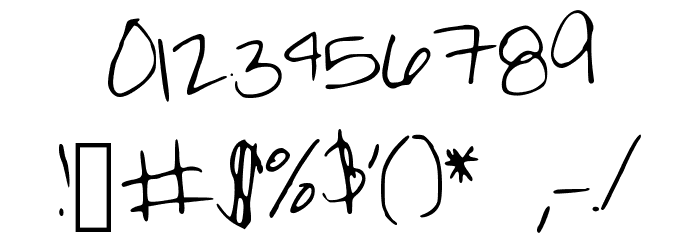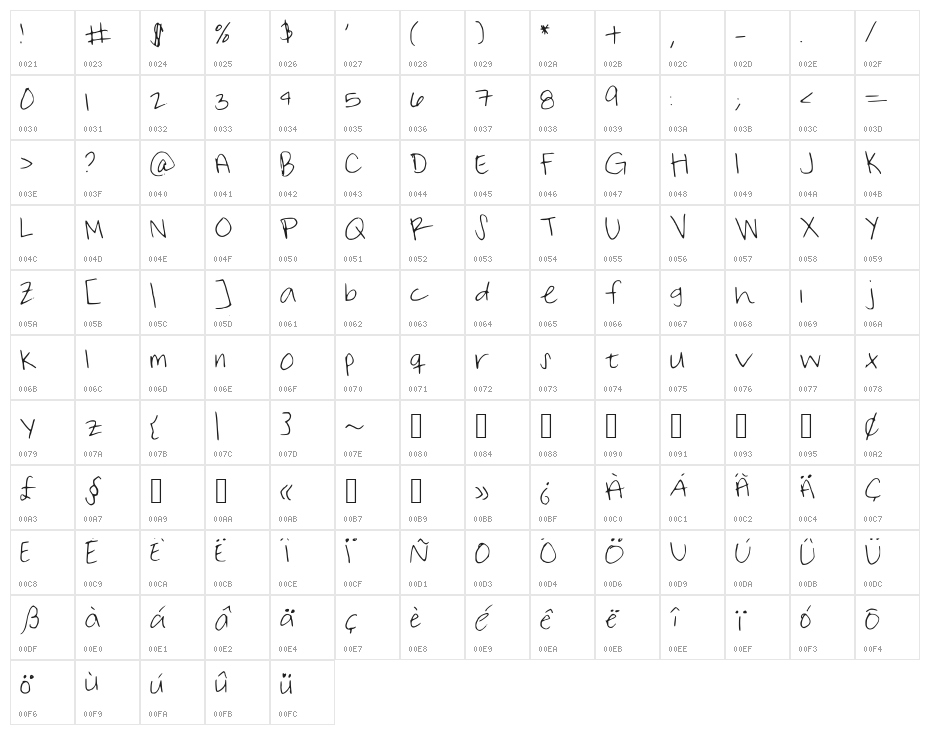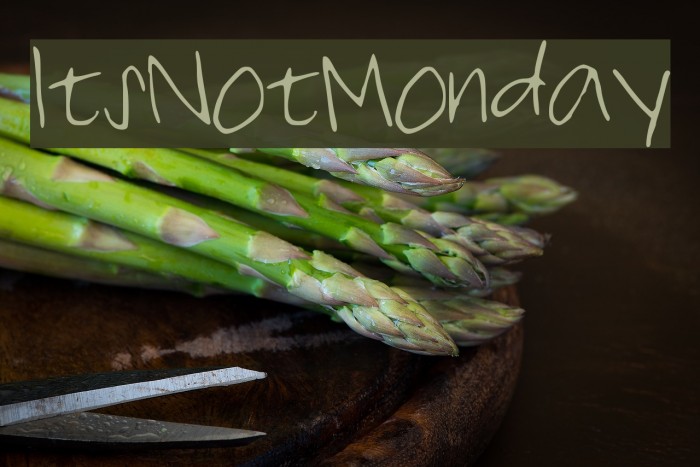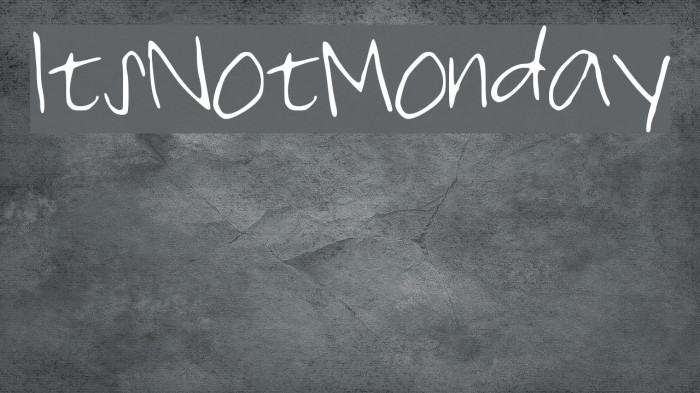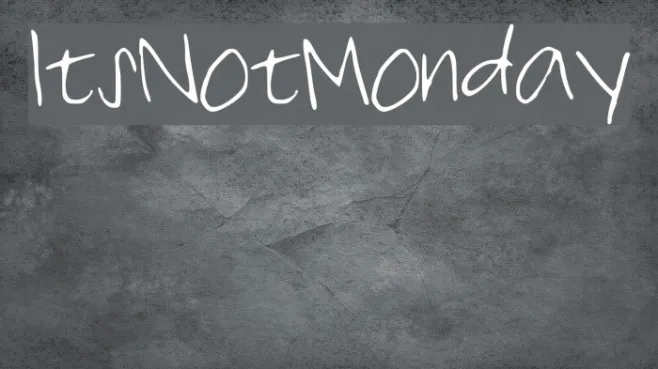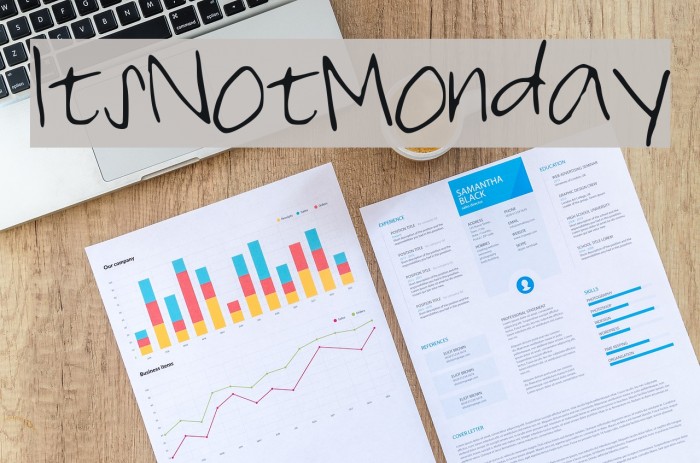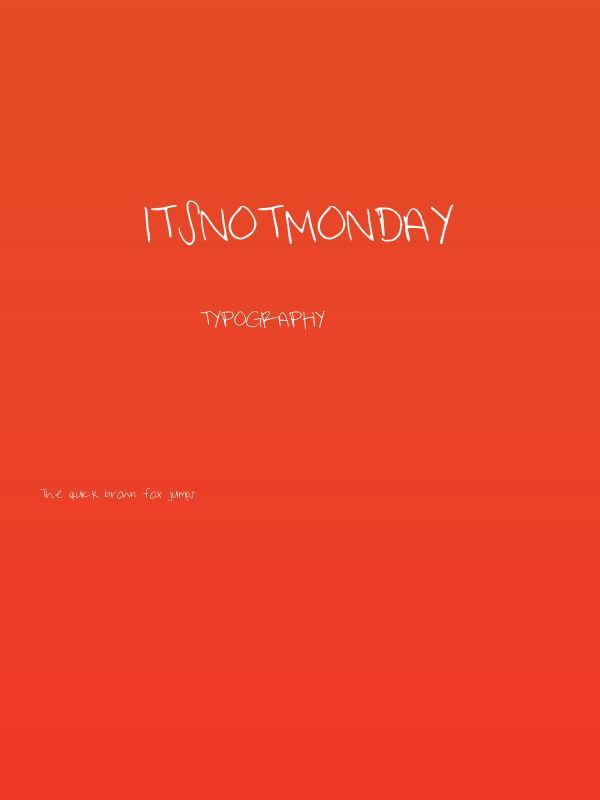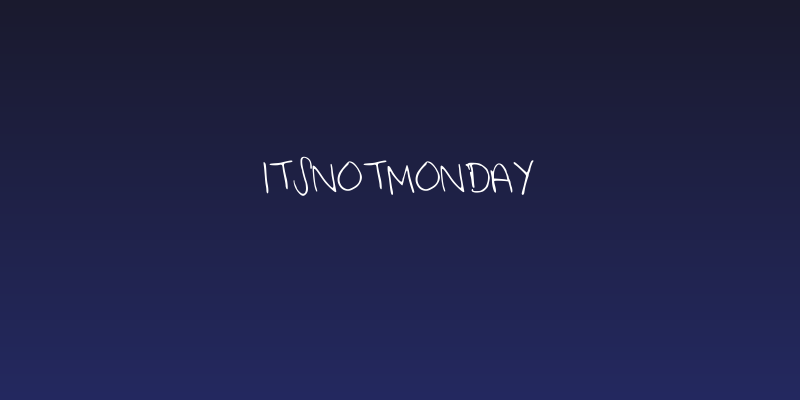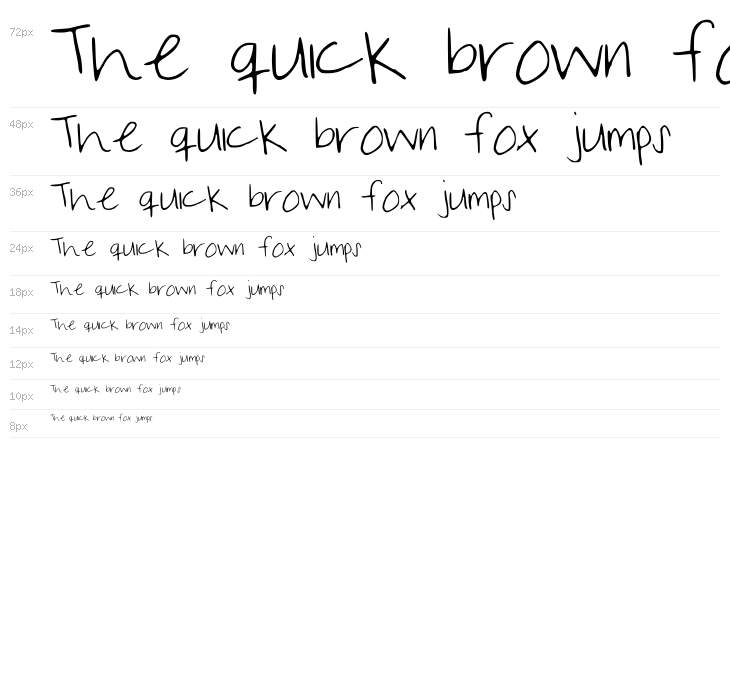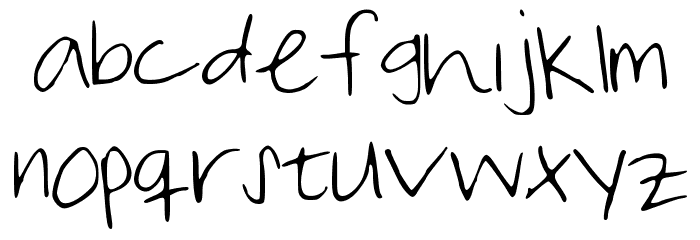
ItsNotMonday Font
ItsNotMonday Description
This font exudes a casual, handwritten style, characterized by its playful and informal appearance. The letters are unevenly sized and spaced, mimicking the natural flow of handwriting. The strokes are smooth yet slightly irregular, adding to the font's charm and authenticity. It captures a sense of spontaneity and creativity, making it ideal for projects that require a personal touch. The uppercase and lowercase letters maintain a consistent style, while the numerals and special characters blend seamlessly with the overall aesthetic. This font is perfect for conveying a relaxed and approachable tone.
Overall StyleCasual
Use CaseHeadlines, Informal text, Creative projects
Proposed ProjectsIdeal for greeting cards, personal notes, creative projects, and informal branding.